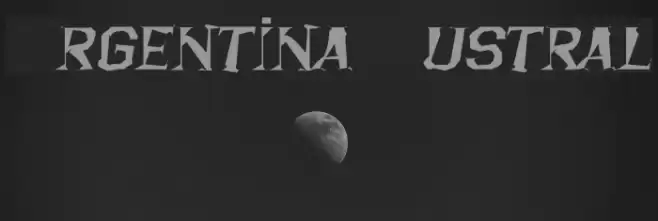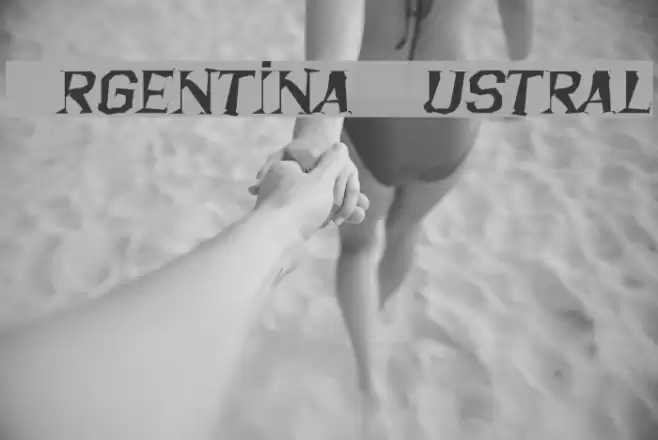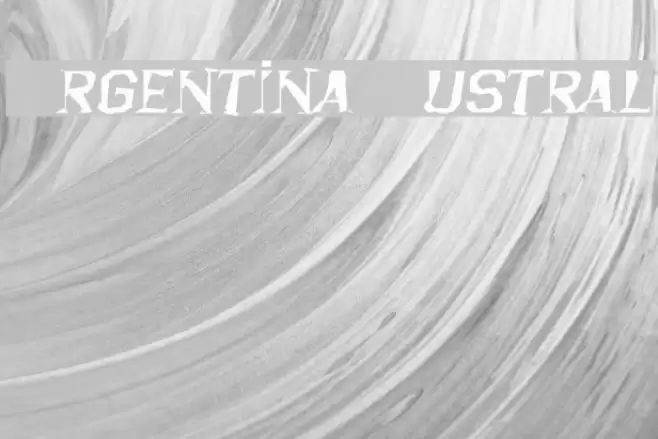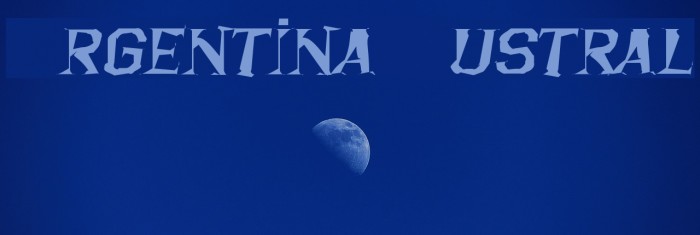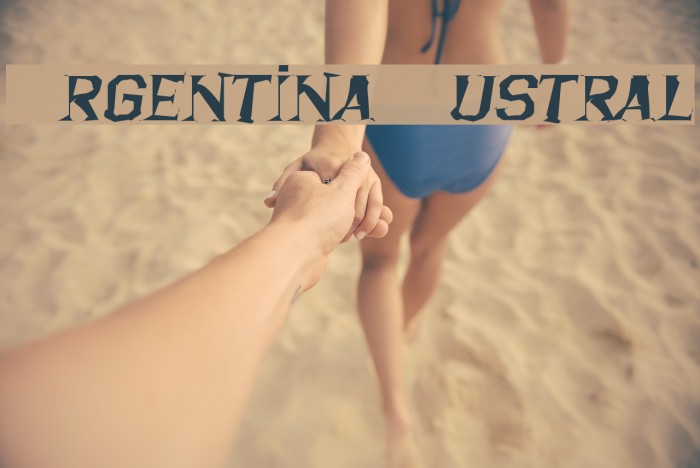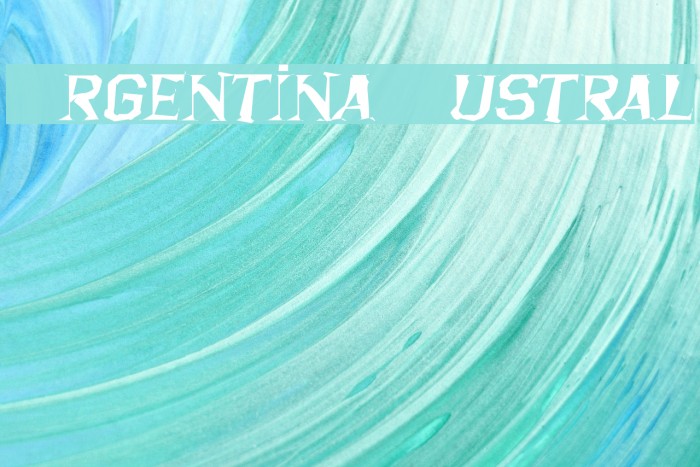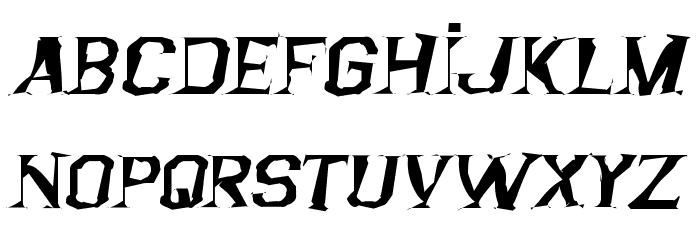
Argentina Austral Font
Argentina Austral Description
This font features a bold and edgy design with sharp, angular edges and a distressed appearance. The uppercase letters are uniquely styled with jagged cuts and irregular shapes, giving it a rebellious and dynamic look. The font's distinct personality makes it stand out, ideal for projects that require a strong visual impact. Its rough texture and bold presence suggest a sense of movement and energy, making it suitable for creative and unconventional designs.
A bold, edgy font with sharp, angular edges and a distressed look from Distorted Eroded fonts.
- Proposed Projects: Ideal for album covers, posters, branding for edgy products, or any design needing a rebellious flair.
- Overall Style: Modern, Edgy